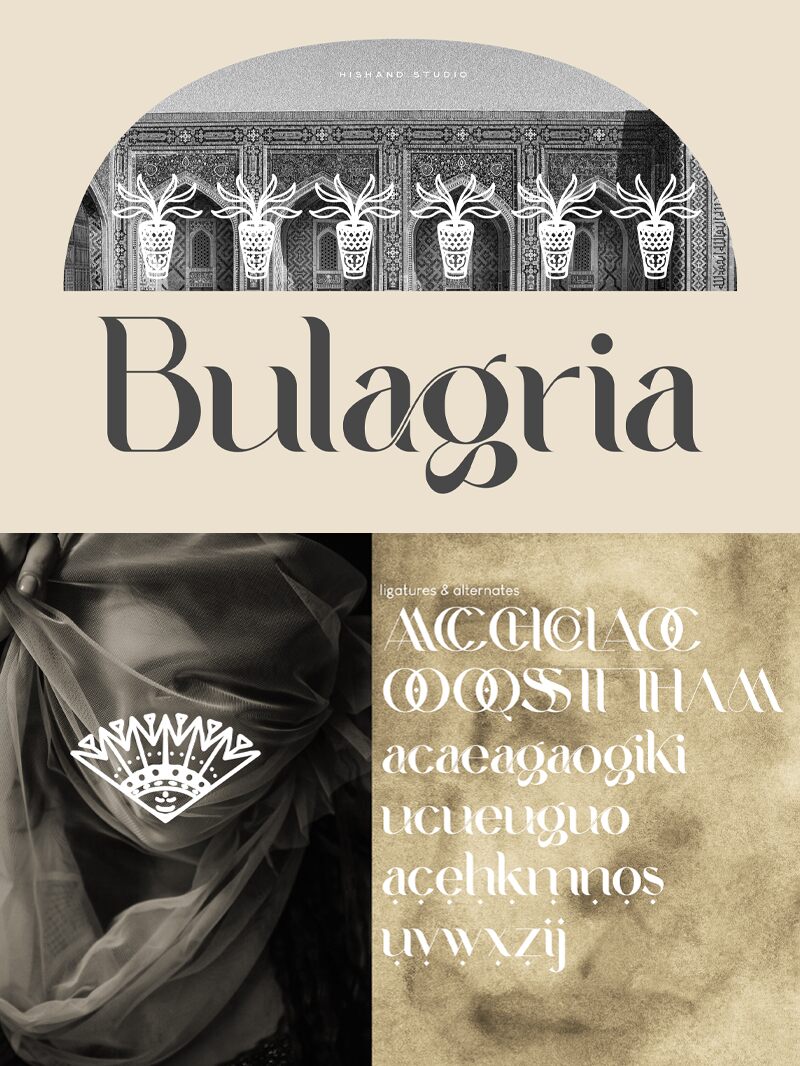
Bulagria font, designed by Hishand Studio, is a modern serif typeface with an elegant and sophisticated appearance. Its high contrast and luxurious feel make it suitable for various visual projects that require an eye-catching touch. This font is free to use.
Use it in branding, magazines, labels, headers and subheaders of websites, posters and flyers, social media posts and ads. A variety of product packaging ideas can be implemented with this new resource in hand including gourmet food packages.